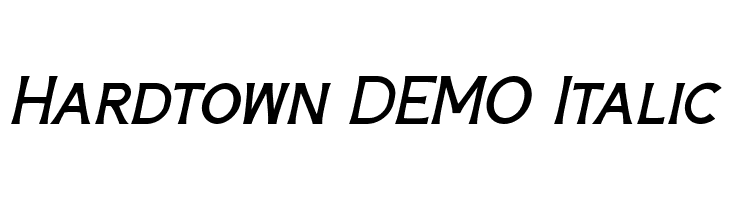
A modern, italicized font with a sleek and dynamic style.
A playful, bold font with rounded, bubbly characters.
A bold, playful font with blocky, slightly irregular characters.
A bold, chaotic, hand-drawn font with jagged, overlapping strokes.
A bold, staggered italic font with a dynamic and powerful presence.
A geometric, double-line font with a modern and dimensional style.
A bold, modern font with a slightly condensed and dynamic style.
A fluid and elegant script font with a handwritten appearance.
A modern outline font with geometric and airy characteristics.
A playful, handwritten-style font with dynamic, flowing strokes.